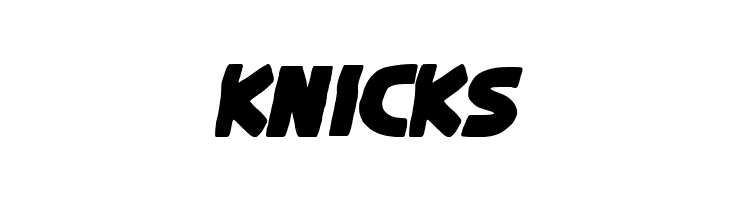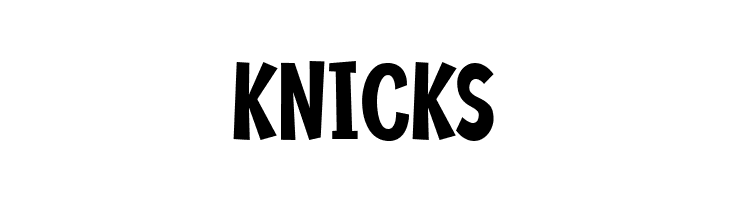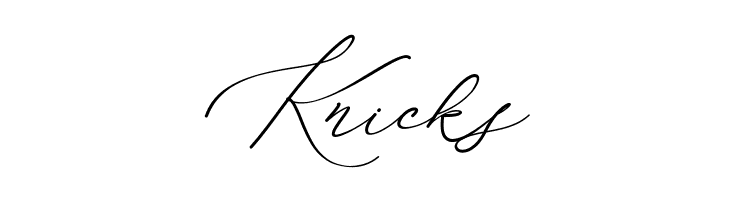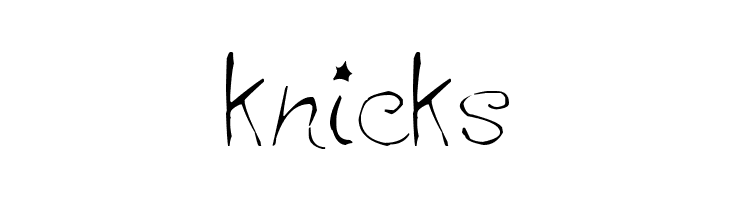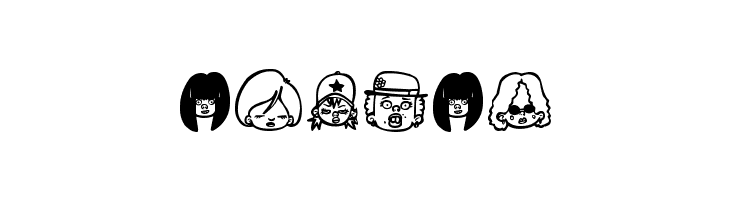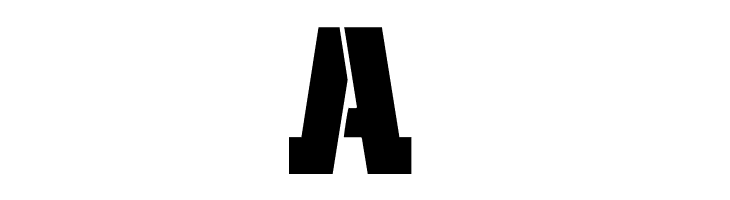
A fluid, elegant handwritten font with smooth, connected strokes.
A sophisticated script font with fluid, interconnected strokes and elegant loops.
A bold, rounded font with a playful and dynamic style.
A bold, playful font with a hand-drawn, energetic style.
A whimsical handwritten font with playful, irregular strokes and creative decorative elements.
A decorative font featuring cartoon female faces as characters.
A decorative cartoon face font with playful, expressive characters.
A bold, flowing script font with a modern calligraphic style.
A bold, geometric stencil font with strong industrial appeal.